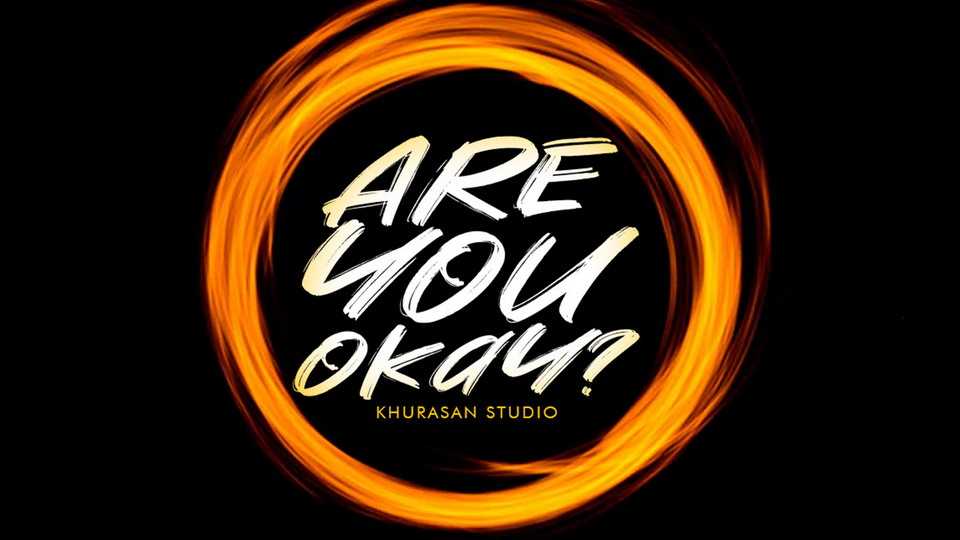
Download Are You Okay font, a striking hand lettered brush typeface. Are You Okay font perfectly fits for posters, banners, headlines, branding, packaging, apparel and more.